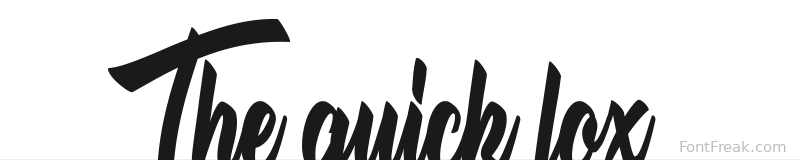
The quick fox
About The quick fox
The quick fox font by Billy Argel Fonts is a striking display typeface that captures attention with its unique characteristics. This font is categorized as a decorative style, making it ideal for projects that require a touch of flair and personality. Its bold strokes and dynamic forms create a visual impact that stands out in various applications. The font showcases a moderate contrast in stroke weight, which adds depth and dimension to each character, while the spacing is carefully considered to enhance readability without compromising style.
This font is particularly well-suited for creative projects such as wedding invitations, where its decorative elements can elevate the overall aesthetic. It also works wonderfully for movie posters, giving titles a dramatic flair that draws viewers in. Restaurant menus can benefit from the font's distinctive look, making dish names more enticing and memorable. Additionally, small business owners looking to create a brand identity will find this font effective in logos and promotional materials, allowing them to convey a sense of creativity and professionalism.
What sets the quick fox font apart is its ability to blend playful elements with a professional appearance, making it versatile for a wide range of applications. This unique combination ensures that projects using this font will not only stand out visually but will also convey a sense of creativity and thoughtfulness. The quick fox font free download is an excellent addition to any designer's toolkit, offering endless possibilities for imaginative design.